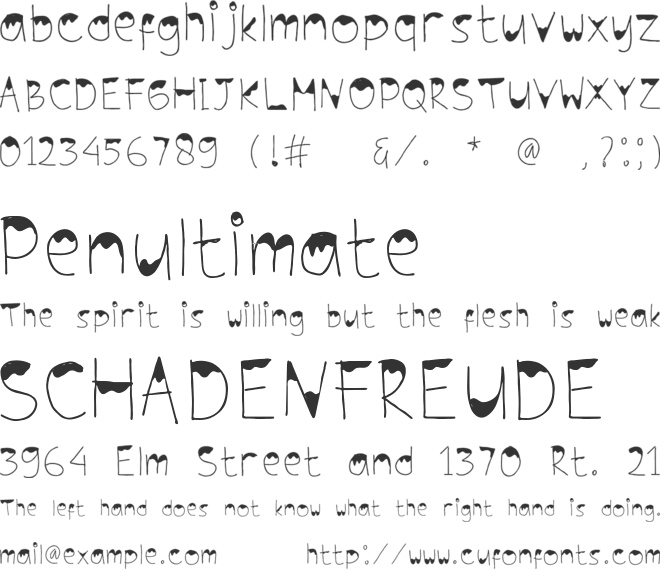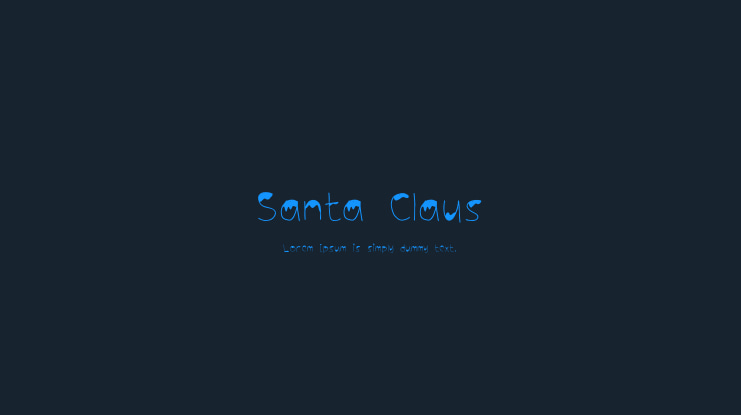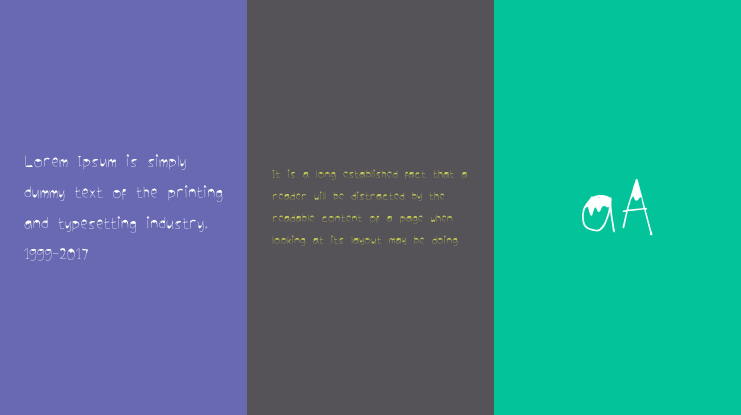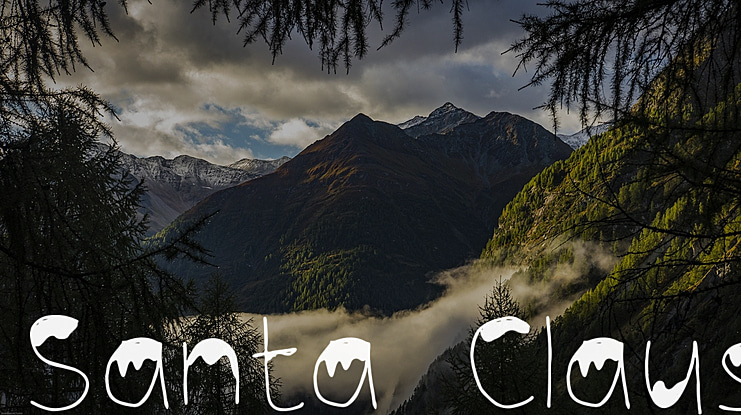
Santa Claus Font
Santa Claus is a display style font suitable for both print and craft needs.
It is cute and childish and as a result, it will match a variety of playful projects.